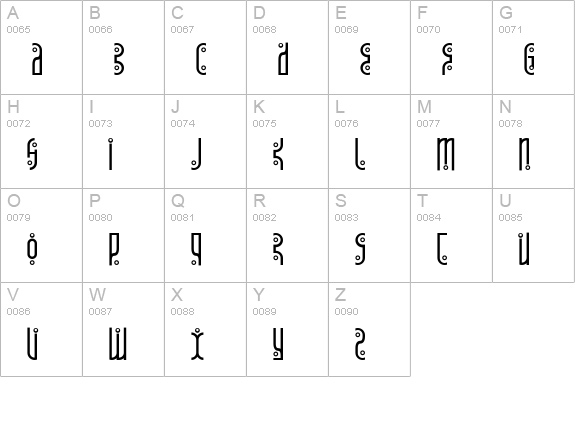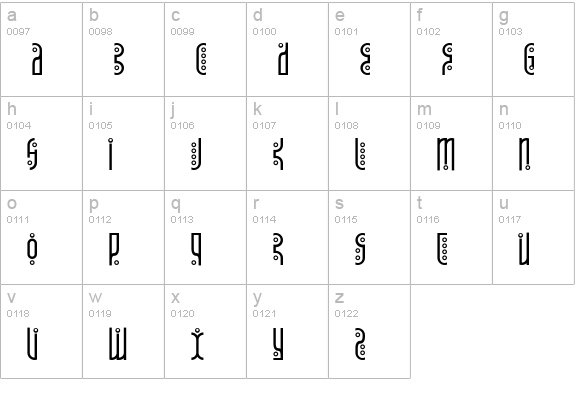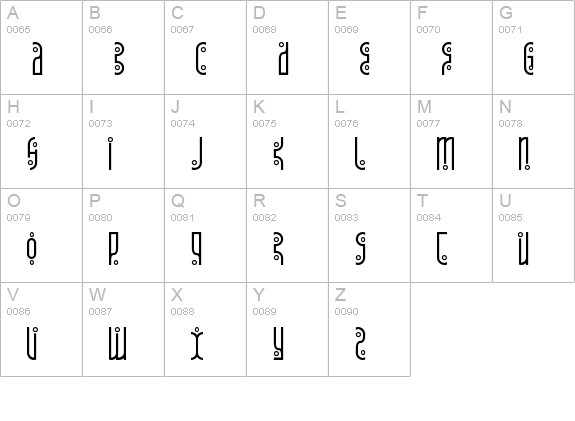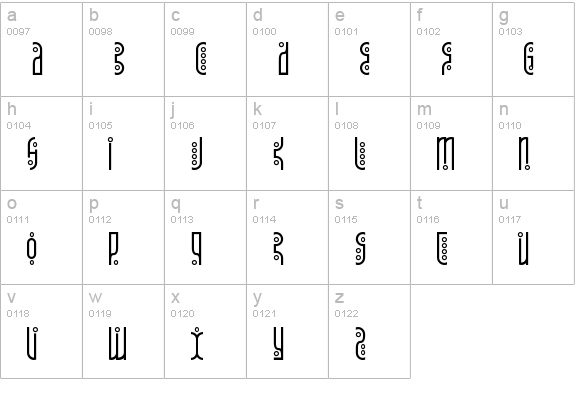
Tantrum Tongue Font Details
Introducing Tantrum Tongue, a rebelliously expressive font that unleashes a torrent of emotions through its bold and dynamic design. This font is a testament to the power of self-expression, offering a unique blend of edginess and sophistication that will captivate any audience. With its sharp and exaggerated letterforms, Tantrum Tongue speaks volumes, effortlessly commanding attention in any creative project. Each character is meticulously crafted to exude a sense of raw energy, making it perfect for headlines, posters, logos, and branding materials that demand to be noticed. What sets Tantrum Tongue apart is not just its striking aesthetics, but also its versatility. This font effortlessly transitions between different moods, adapting to the tone of your message. Whether you need to convey a sense of urgency, defiance, or passion, Tantrum Tongue is the perfect typographic tool to amplify your words. And the best part? Tantrum Tongue is freely available to download at FontsMarket.com. This means you can bring your creative vision to life without any cost or limitations. So, why wait? Unleash your creativity today and let Tantrum Tongue be the voice that speaks for your designs.